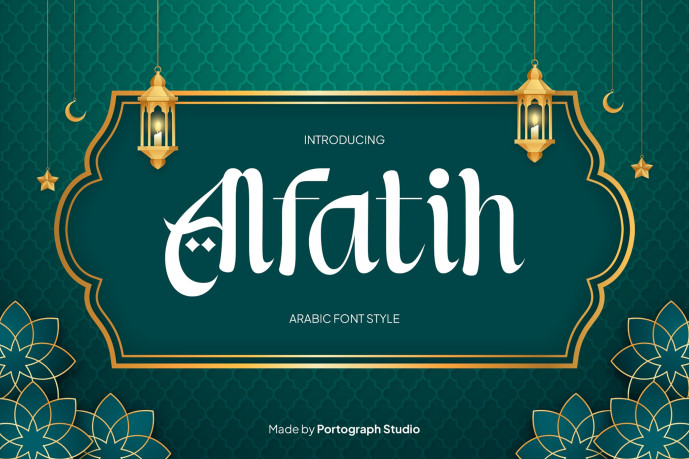
Alfatih – Arabic Font
Designer: portograph
Alfatih – Arabic Font is an elegant display typeface inspired by classic Arabic calligraphy and Islamic ornamental design. Featuring smooth curves, graceful strokes, and refined proportions, this font delivers a luxurious and spiritual atmosphere to your typography.